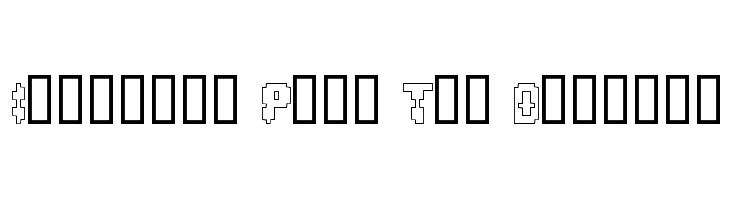
• MelonSeeds 字体
• Batrider 字体
A bold, flowing script font with elegant curves and high contrast.
• blaetter 字体
A decorative font with leaf motifs embedded in square blocks, offering a nature-inspired aesthetic.
• Sky Ridge Bold Expanded 字体
A bold, expanded, futuristic font with geometric letterforms.
• DrToboggan 字体
A playful, bold handwritten font with rounded strokes and dynamic flow.
• Sixty Queens 字体
A playful, bold font with bubble-like outlines and a retro, cartoonish style.
• Tha Boukagnes 字体
• Legend Bold Italic 字体
Bold, italicized font with a distressed, grunge texture.
• Steelr 字体
A modern, geometric font with rounded edges and consistent stroke widths.
• First Edition JL 字体
A decorative font with letters encased in book-like frames, ideal for literary-themed designs.